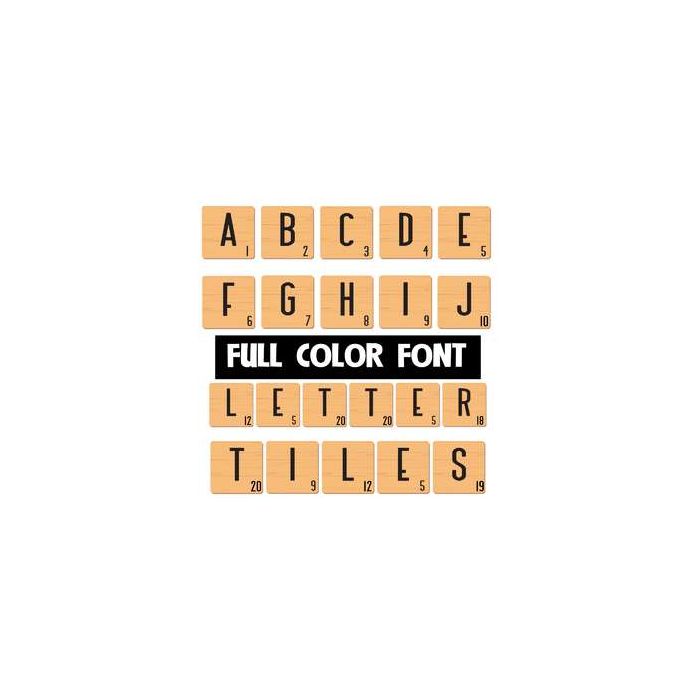
This full-color font has letters on wooden tiles. This font works best for titles, displays, posters and more. Please note color fonts will show as black in non compatible programs. This font type is compatible with Silhouette Studio.